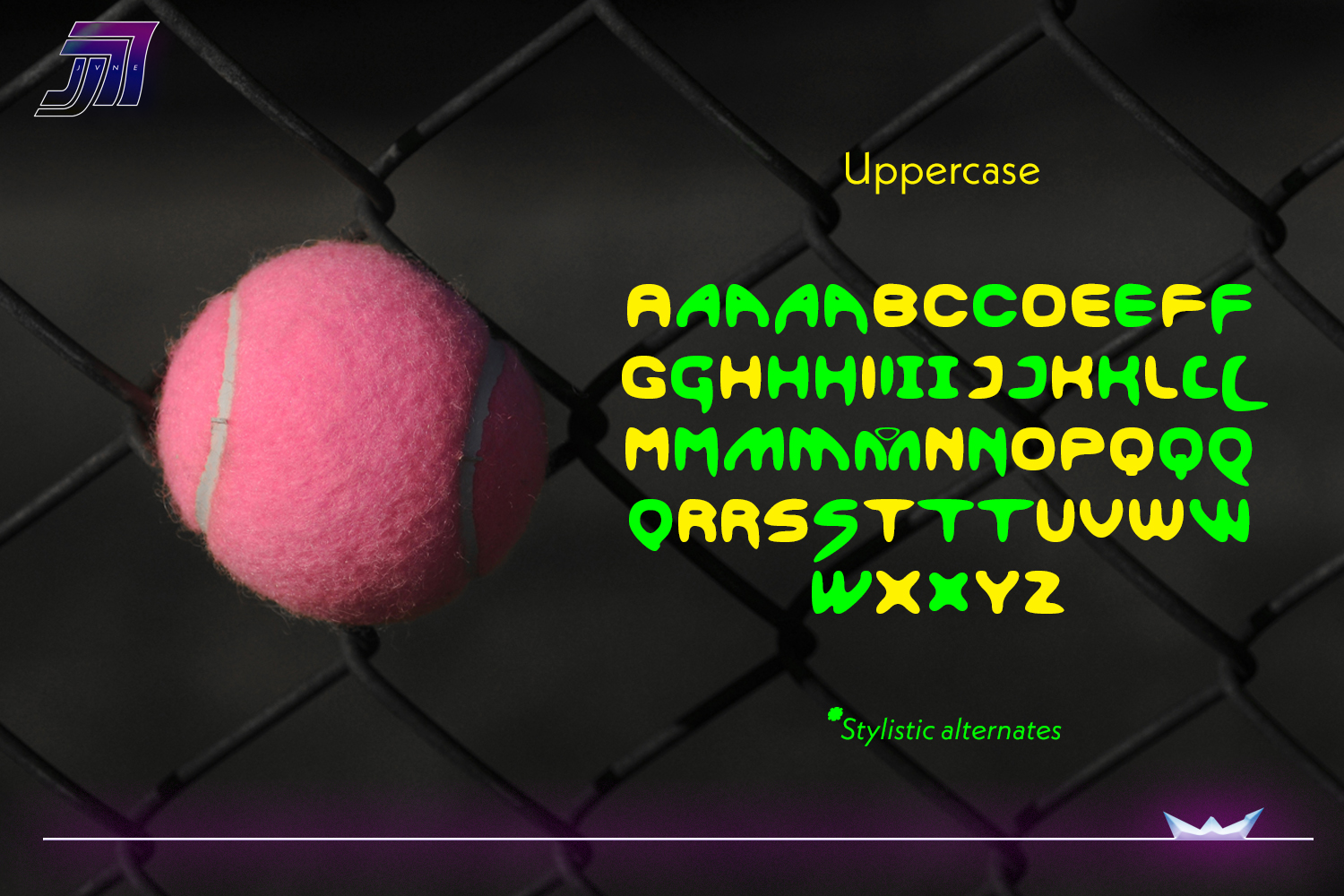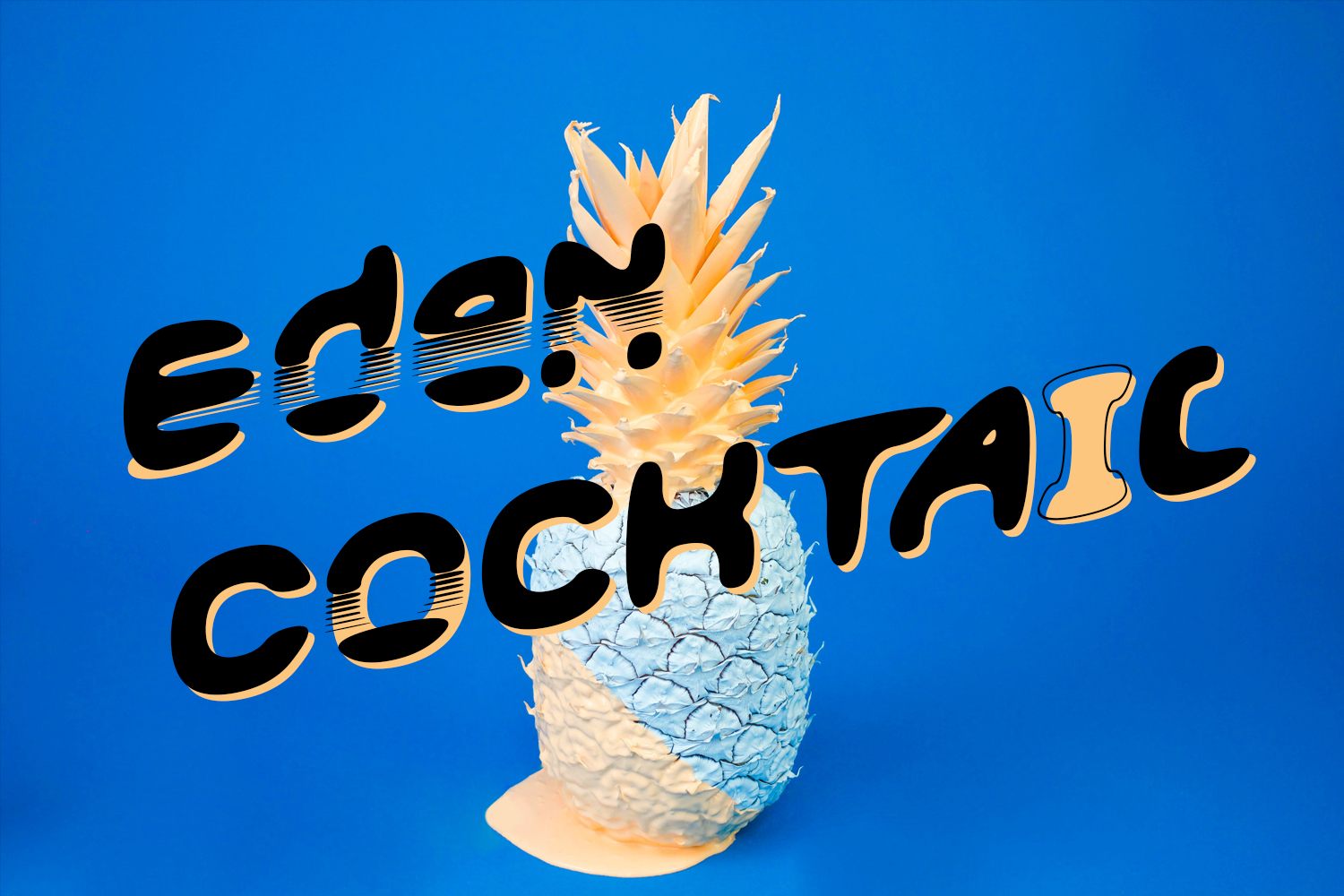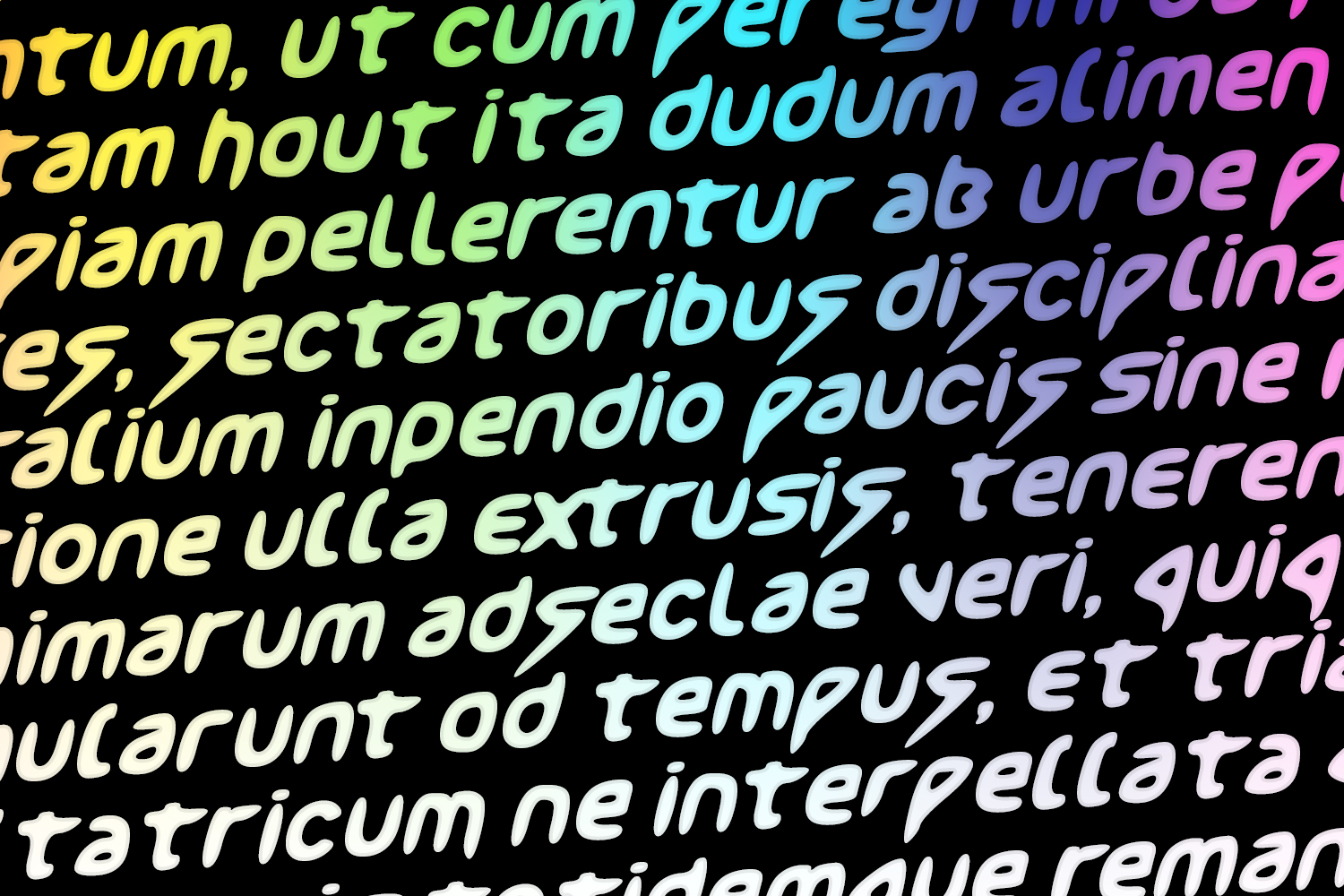
About JVNE Smoothdron Font
JVNE Smoothdron is a fun free font, a comica typeface that is perfect for displays and headlines! This is based on another font by the typographer, Jvne77, and comes with tons of glyphs so you can have a wide range of style options.